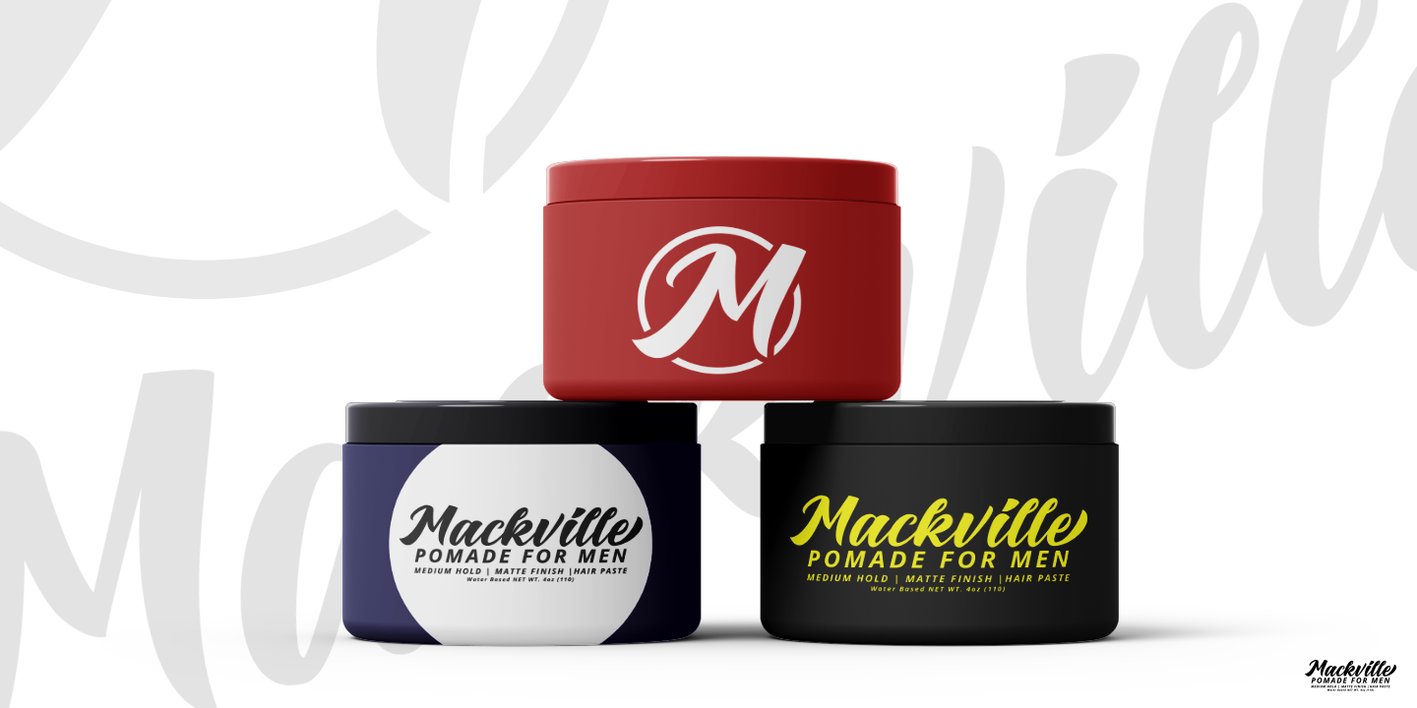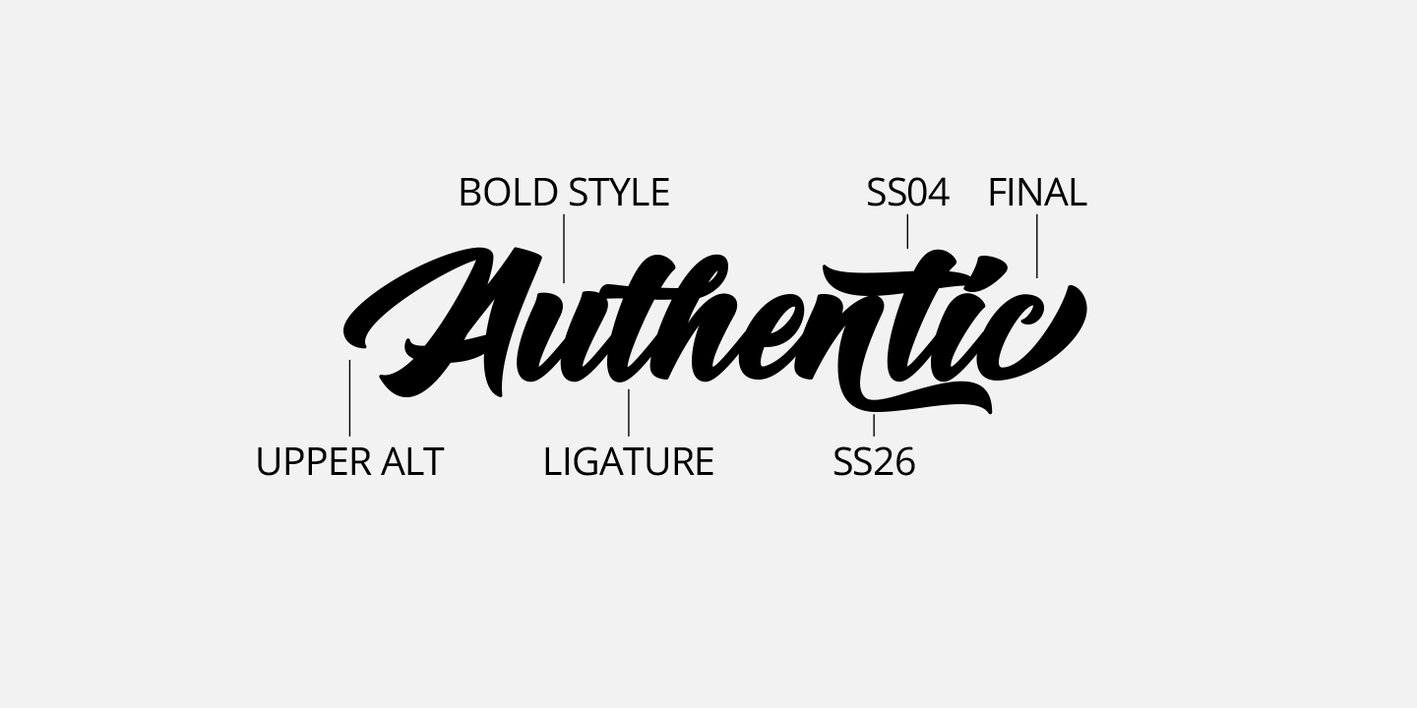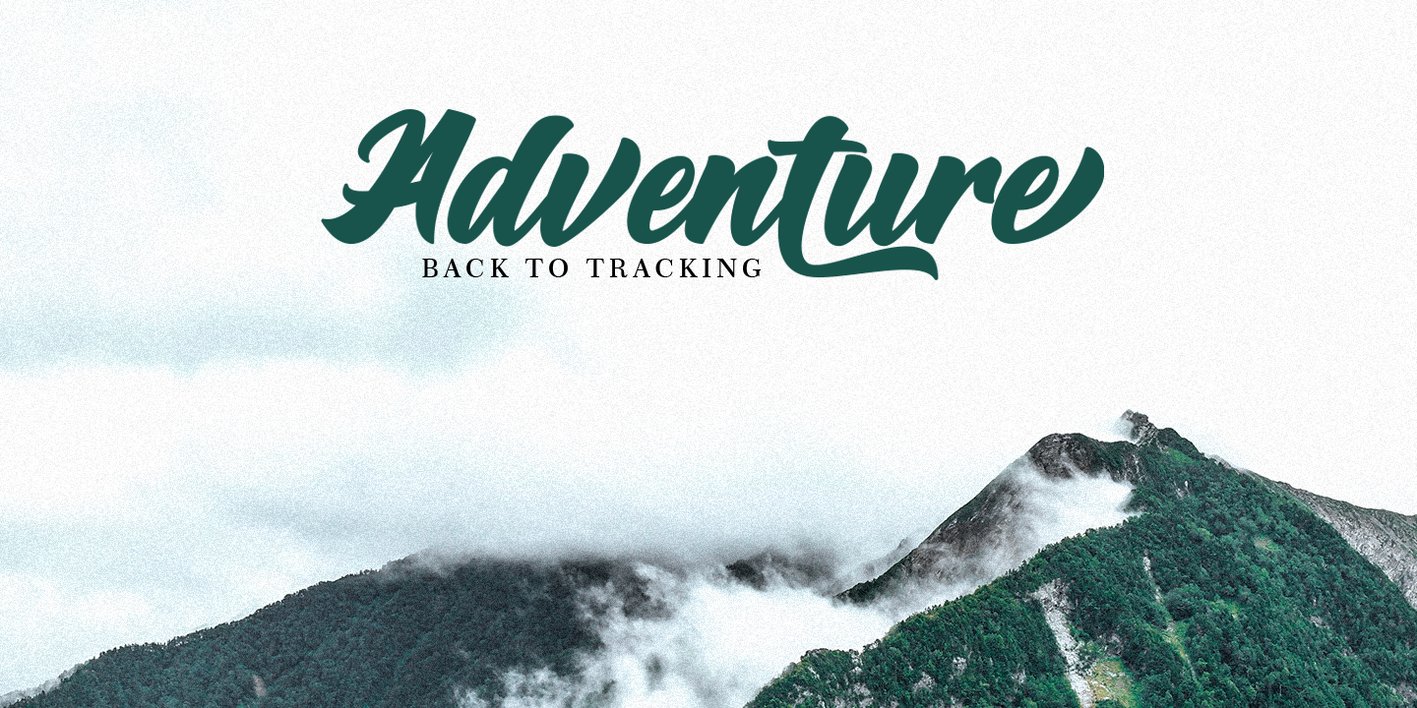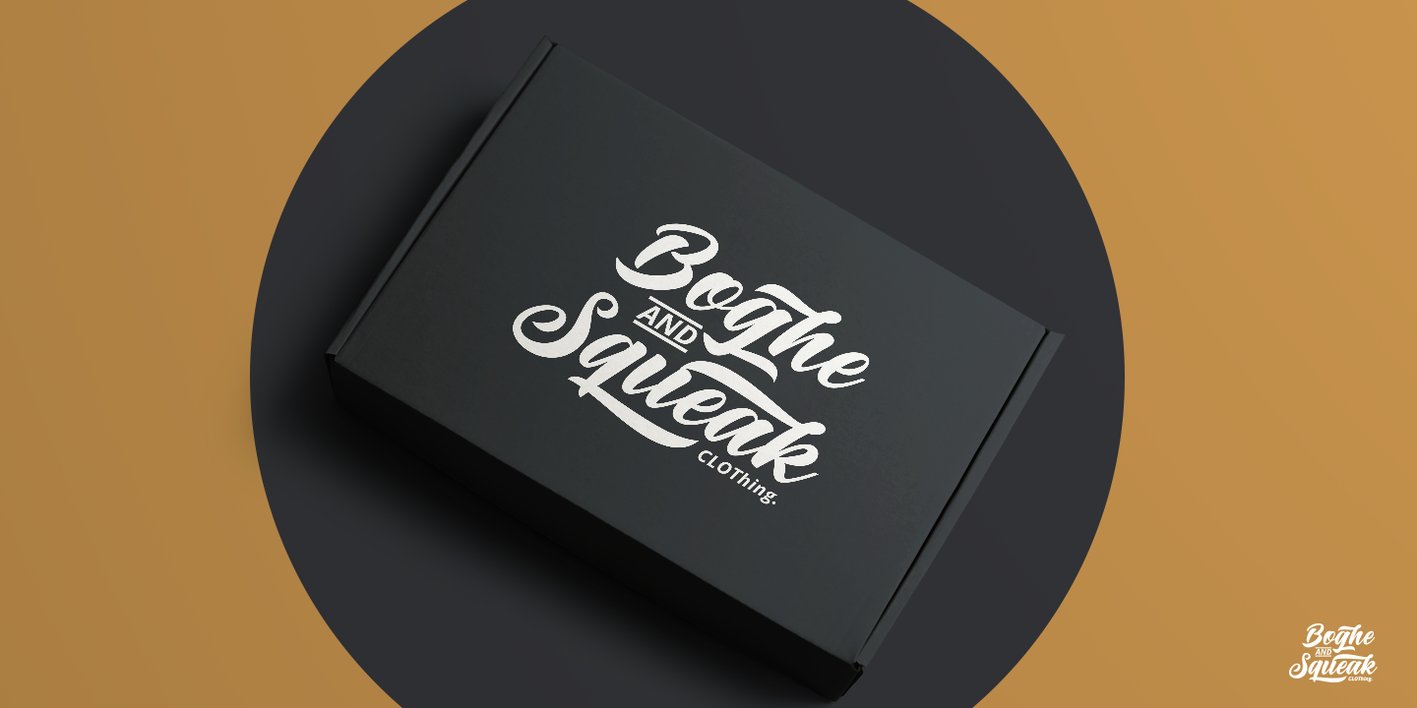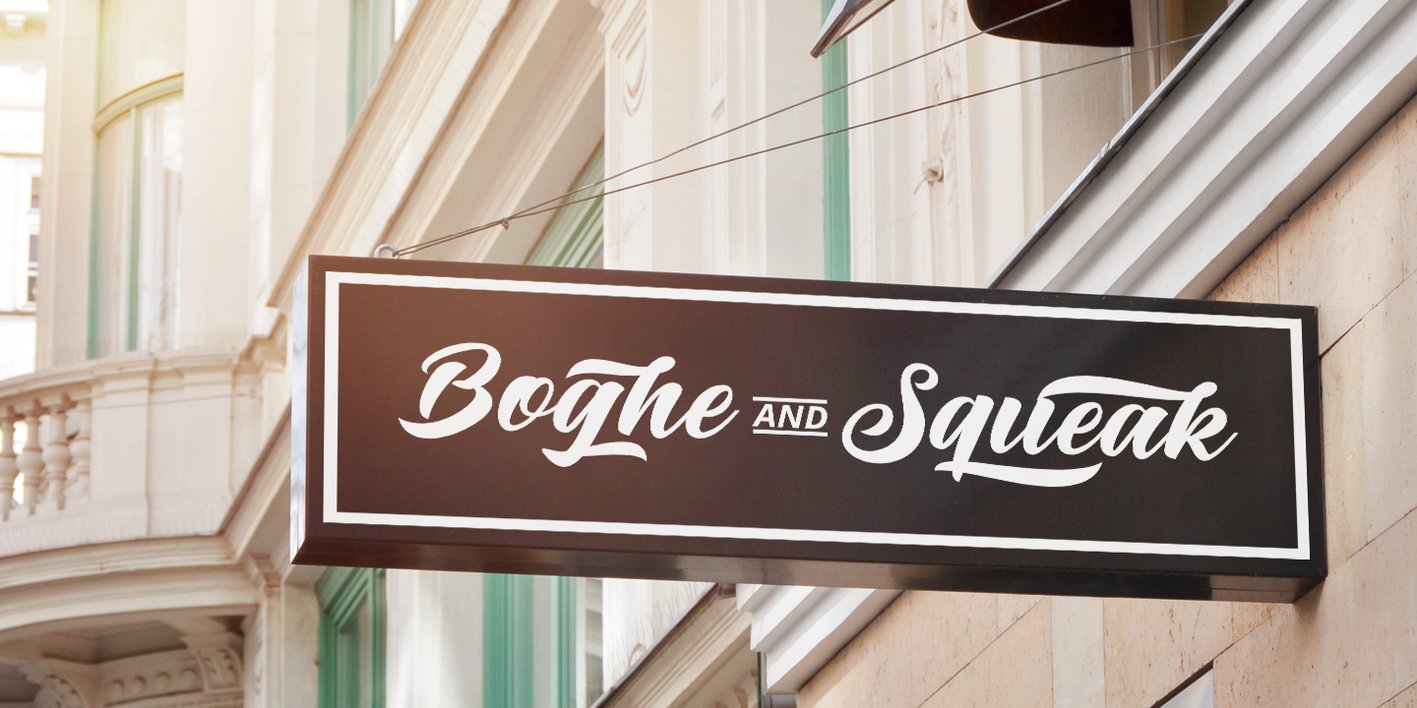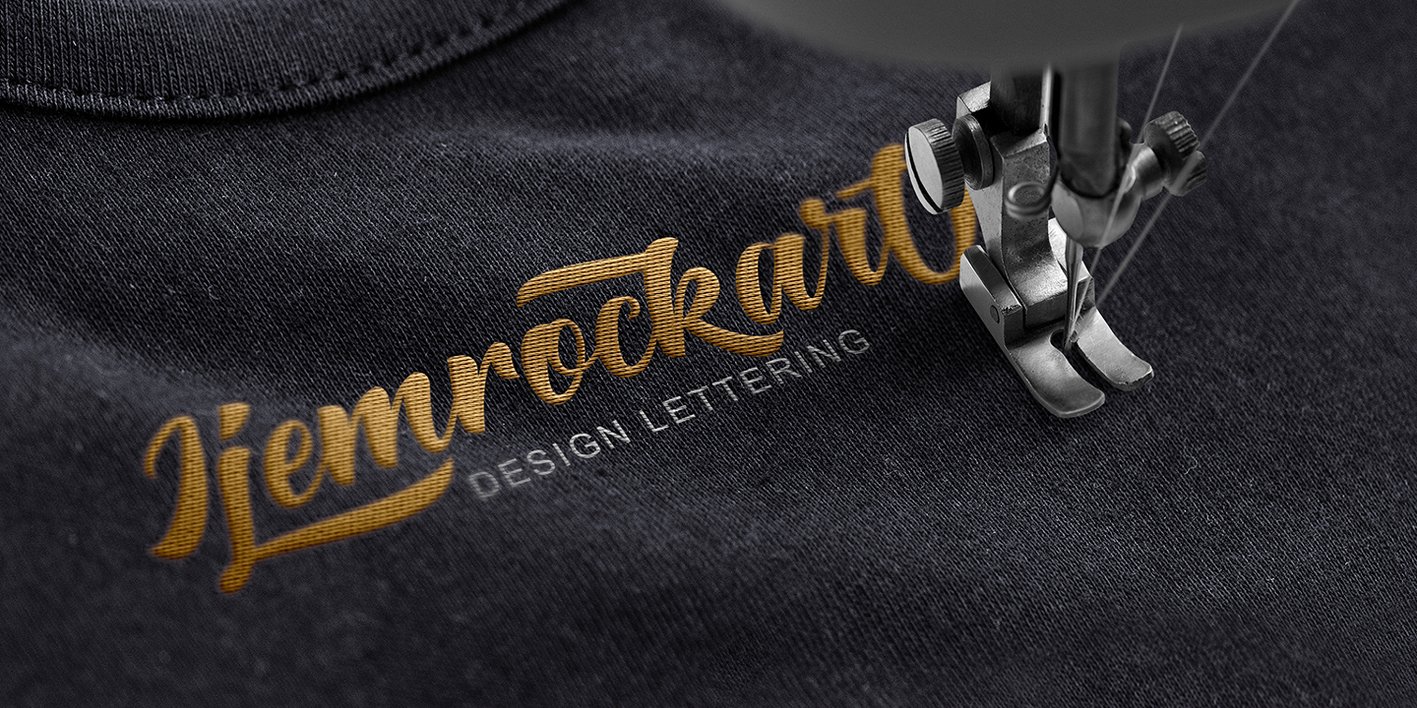
Big Blue Font
Big Blue Font is a hand brushed typeface, with authentic Clean and Rough imperfections, and a very bouncy baseline It has a perfectly paired complimentary marker font, and a super handy set of bonus Swash. Ideal for logos, handwritten quotes, product packaging, header, poster, merchandise, social media & greeting cards. To enable the OpenType Stylistic alternates, you need a program that supports OpenType features such as Adobe Illustrator CS, Adobe Indesign & CorelDraw X6-X7. There are additional ways to access alternates, using Character Map (Windows), Nexus Font (Windows), Font Book (Mac) or a software program such as PopChar (for Windows and Mac). If you have any question, don't hesitate to contact me by email